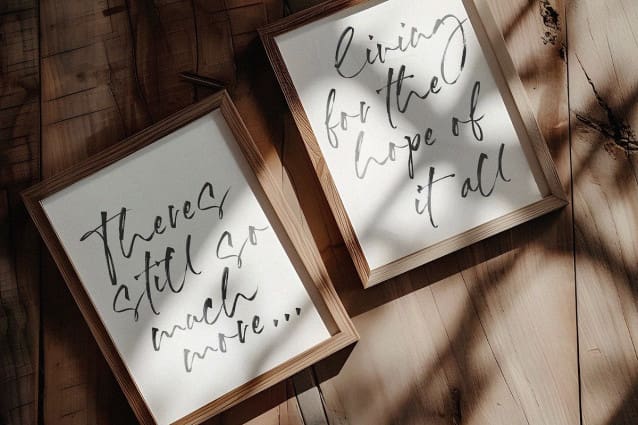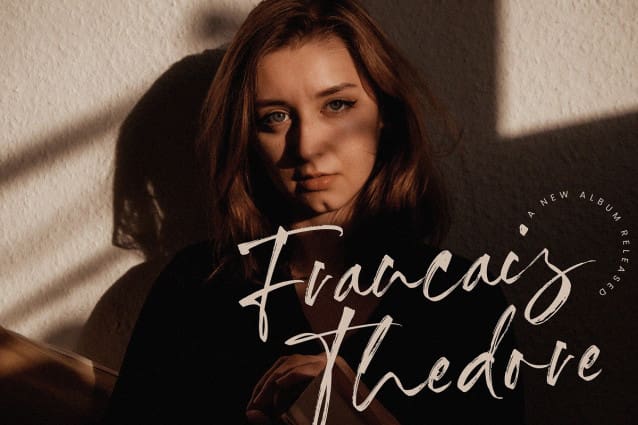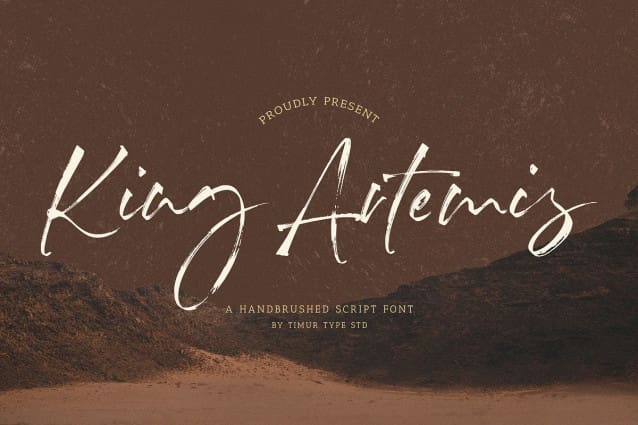
King Artemis Font
King Artemis Font is a Handbrushed Script Font. This font is a captivating handbrushed script font that exudes regal elegance and artistic flair. With its graceful strokes and flowing curves, each letter is crafted to evoke a sense of royalty and sophistication. Perfectly balancing tradition with modernity, “King Artemis” is designed for those who seek to add a touch of majestic charm to their projects, whether in branding, invitations, or decorative elements. This font promises to elevate any design with its unique blend of classic craftsmanship and contemporary style, making it a standout choice for creators who appreciate the beauty of handcrafted typography.